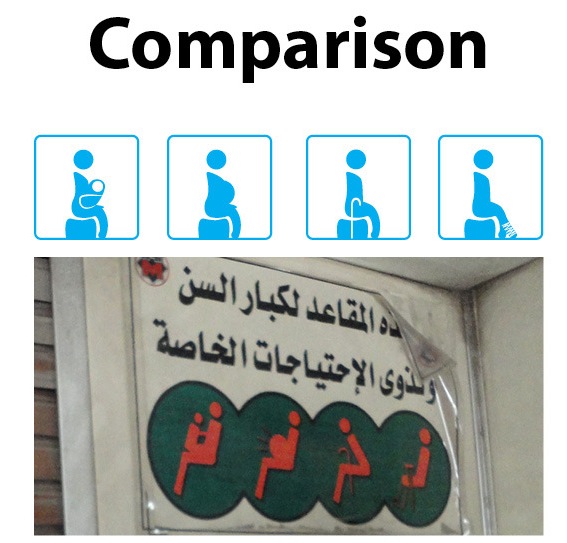
Sara Elsayaad
During her graphic design studies in Cairo, Sara Elsayaad created Float (2013, a brush typeface for Latin), Shams (2013, an Arabic typeface) and Egyptienne Ultra Light (2013, a Latin / Arabic typeface). She also published Cairo Pictograms (2013) as a proposal for Cairo's subway.